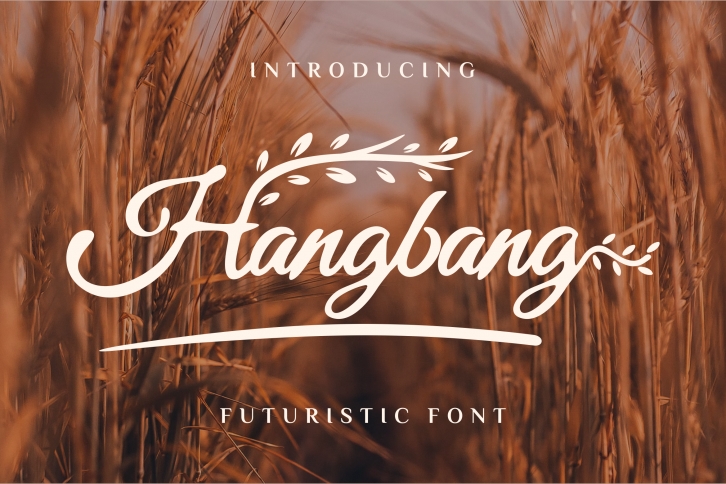
Hangbang is a delicate and vintage styled script font, that’s great for delivering any message with confidence, authenticity and charm. It will elevate a wide range of crafting ideas, from cards, to branding, labels and much more.